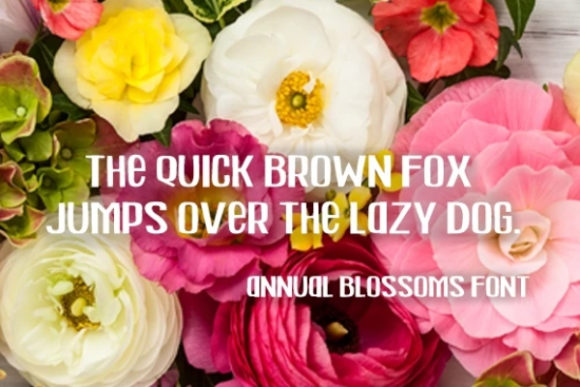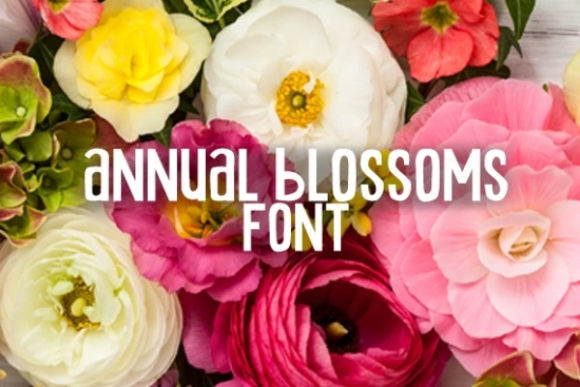
The Blossom Effect: How Annual Blossom Font Can Elevate Your Designs
I’ll never forget the time I was working on a project for a client who wanted a bold, eye-catching font to make their brand stand out. I scoured the internet, tried countless fonts, but nothing seemed quite right. That was until I stumbled upon Annual Blossom – a game-changer in the world of display fonts. Its unique blend of charm and versatility instantly won me over, and I knew I had found the perfect fit for my client’s needs.
An Honest Review of Annual Blossom
• ✨ Bold and beautiful: Annual Blossom makes a statement with its bold, yet elegant design that’s sure to turn heads.
• ✅ Readability: Despite its boldness, this font remains surprisingly readable, even on busy backgrounds.
• 💡 Versatility: Whether you’re designing a logo, brochure, or social media post, Annual Blossom adapts seamlessly to any context.
While Annual Blossom is an exceptional font, there are a few minor quirks to be aware of:
• ⚠️ Limited use in body text: Due to its bold nature, Annual Blossom is best suited for headlines and titles rather than body text.
• 🤔 Occasional kerning issues: As with any font, some users may experience kerning issues, particularly when using certain character combinations.
One of the standout features of Annual Blossom is its support for OpenType features, glyphs, and stylistic alternates. These features allow you to:
• Access alternative characters: Swap out characters for stylistic variations, adding visual interest to your text.
• Use ligatures and ornaments: Add a touch of elegance with ligatures and ornaments that connect letters or add decorative flourishes.
• Experiment with stylistic sets: Try out different stylistic sets to give your text a unique look and feel.
The Story Behind Annual Blossom
Annual Blossom was designed with the intention of creating a bold, yet charming display font that would capture the essence of nature and beauty. Inspired by blooming flowers and lush greenery, this font embodies the carefree spirit of spring and summer. Its creator aimed to craft a font that would be both versatile and visually striking, making it perfect for a wide range of design applications.
Q: What type of projects is Annual Blossom best suited for?
A: Annual Blossom is ideal for projects that require a bold, eye-catching font, such as logos, brochures, social media posts, and headlines.
Q: Is Annual Blossom a Unicode font?
A: Yes, Annual Blossom supports Unicode characters, making it compatible with a wide range of languages.